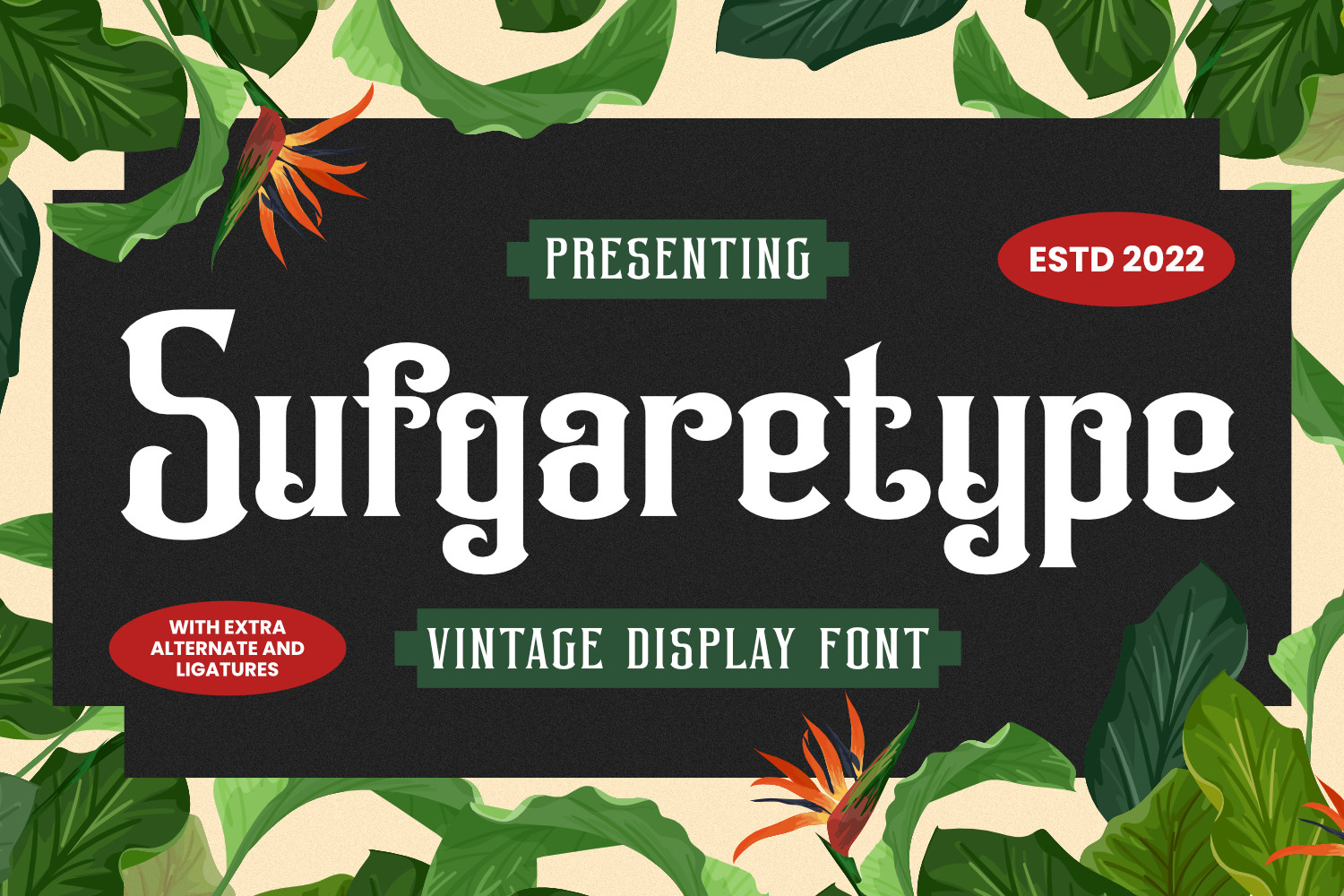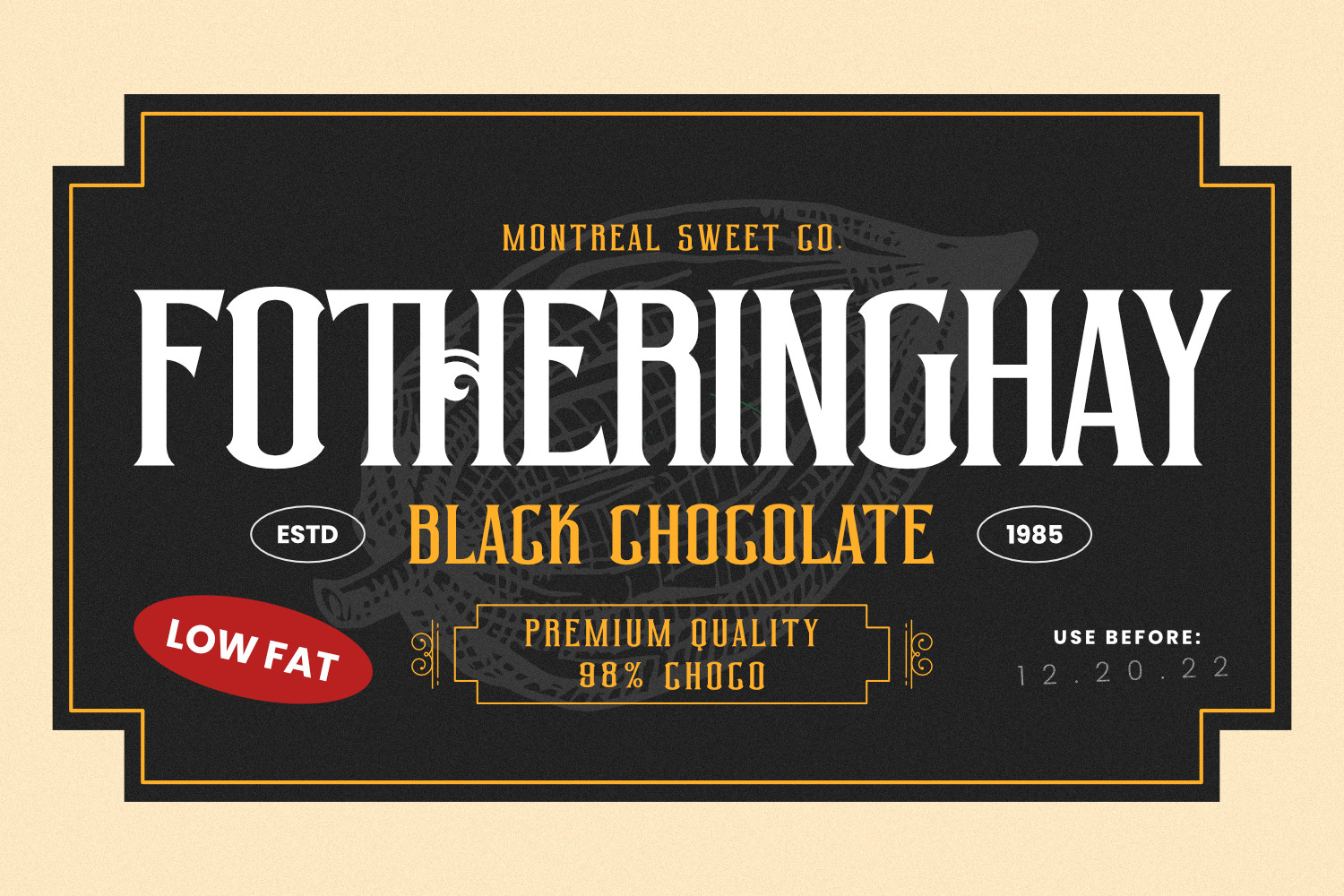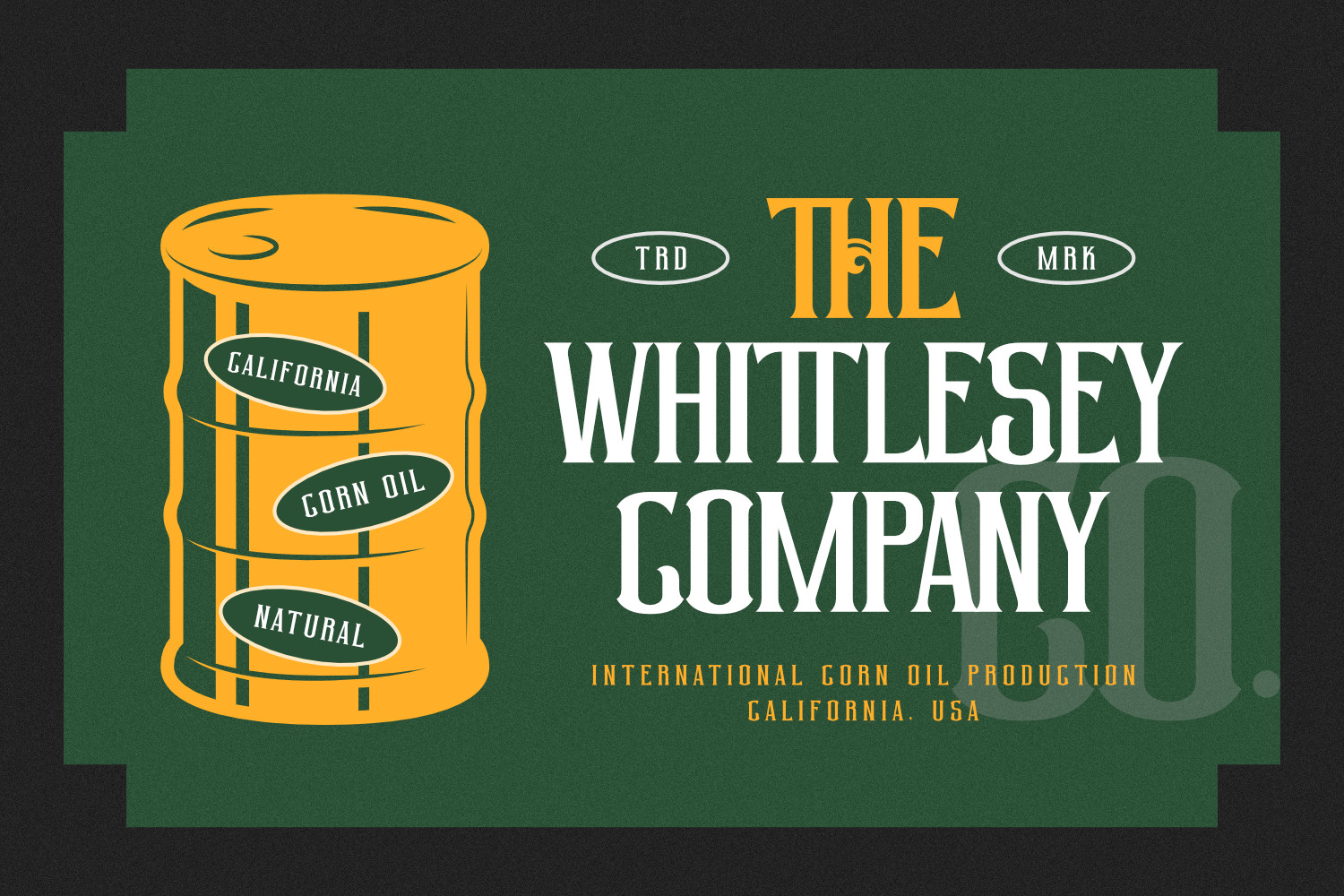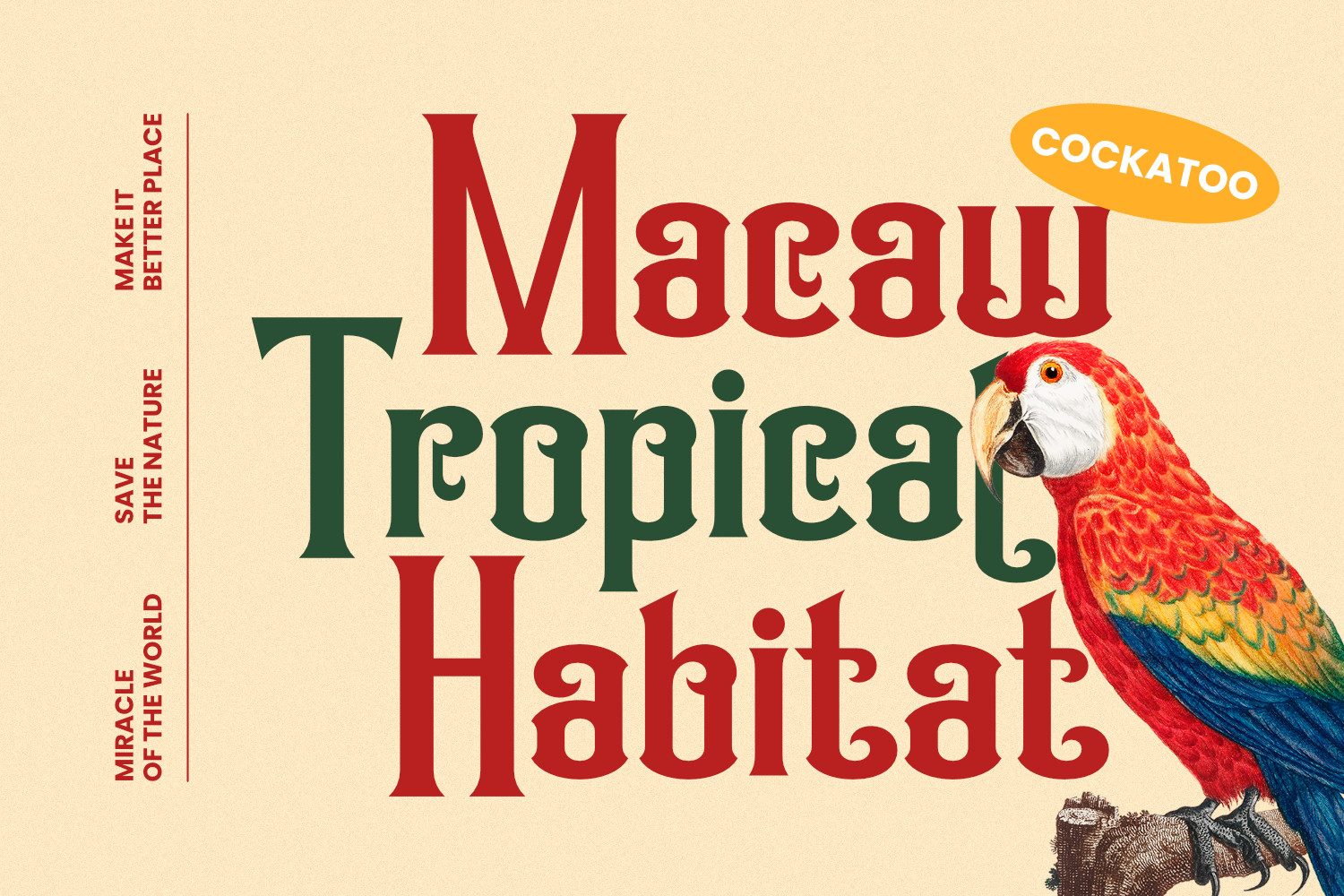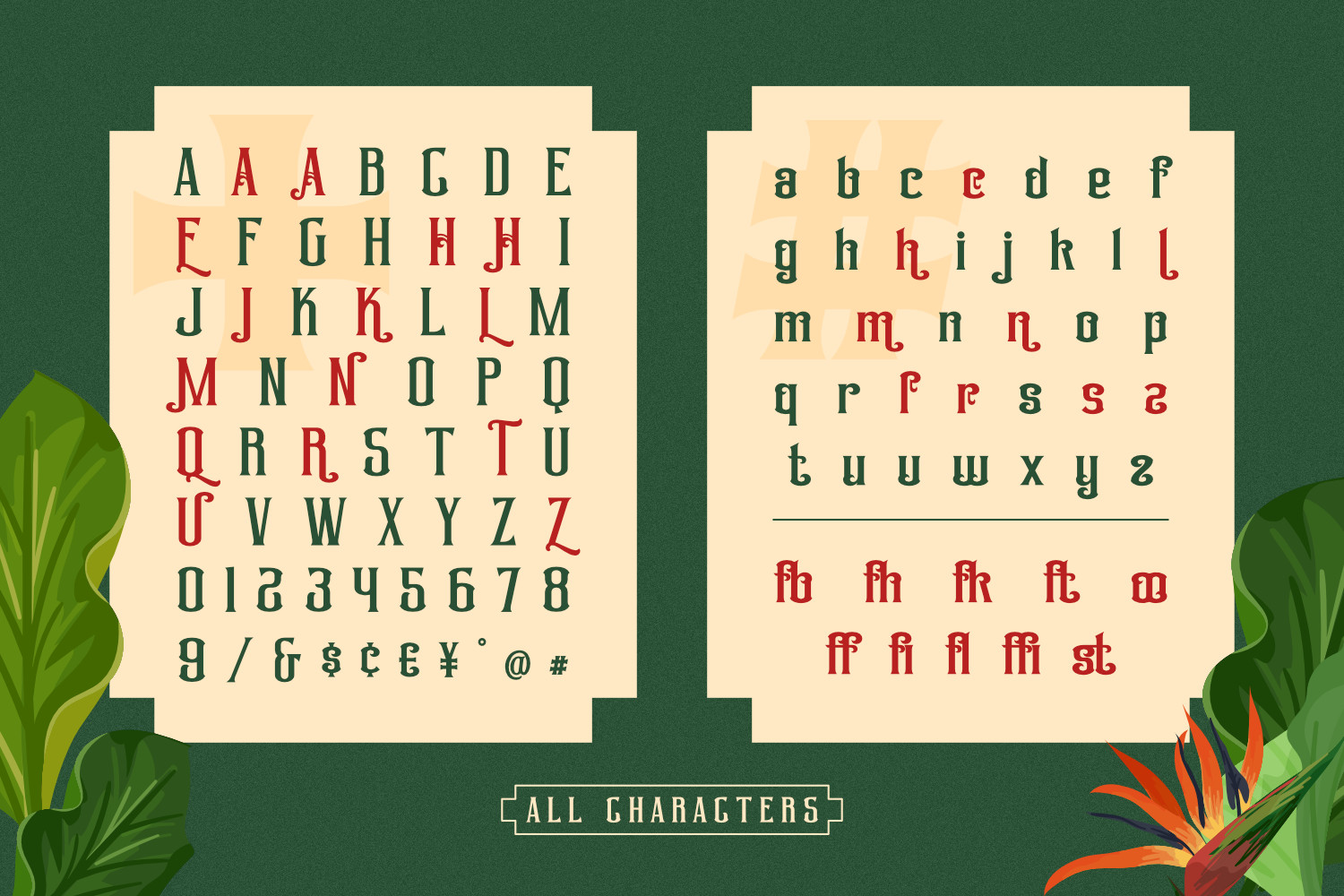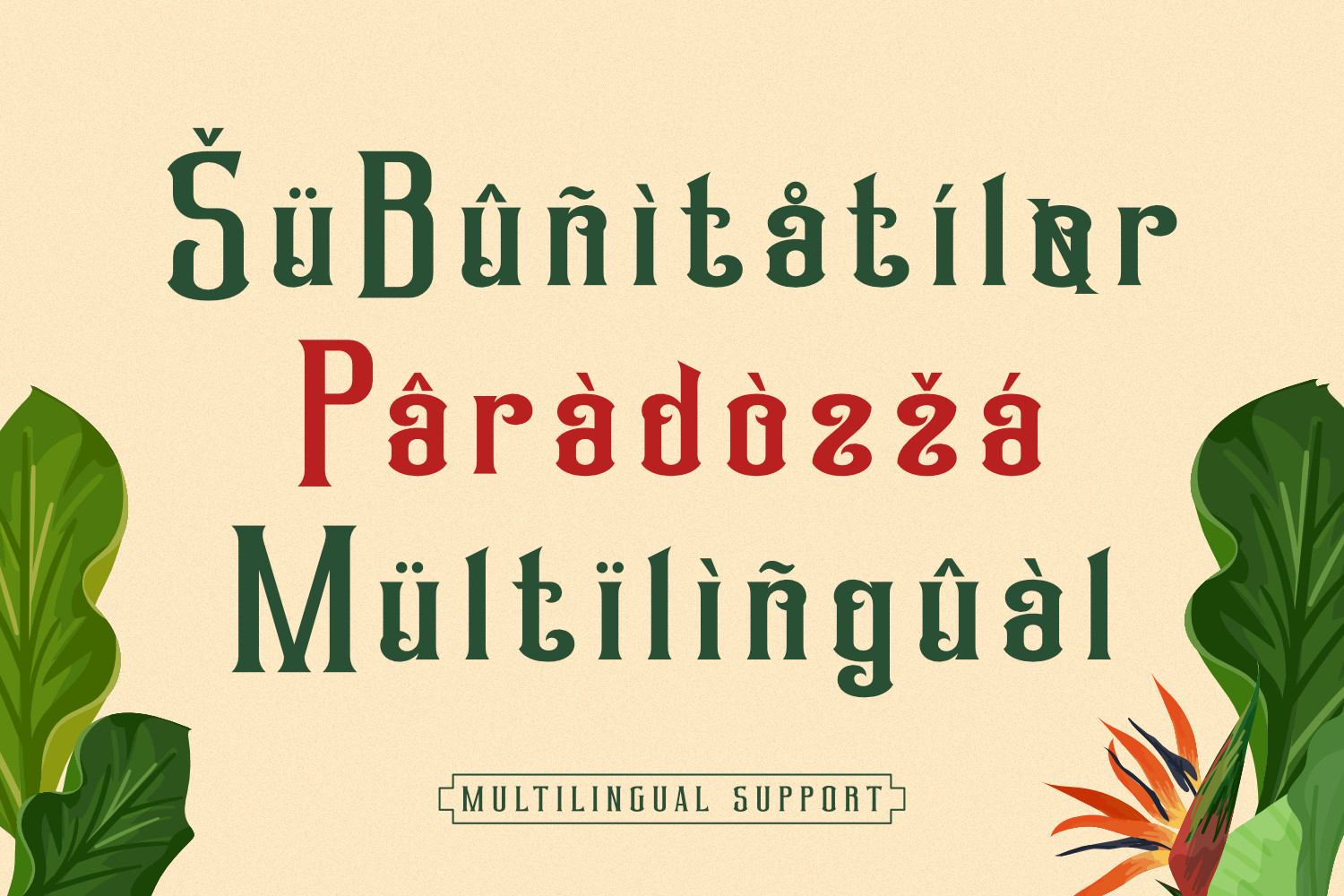
Sufgaretype is a bold vintage display font that mixes old-world charm with tropical flair. Designed with sharp serifs and playful curves, this typeface captures the spirit of traditional signage while maintaining a fresh, contemporary appeal. With its solid structure and nostalgic detail, it stands out beautifully on product packaging, especially for chocolate, drinks, or tropical-themed branding.
Complete with alternate characters, unique ligatures, and multilingual support, Sufgaretype offers excellent versatility for vintage posters, editorial titles, and logo design. Whether you’re creating an artisanal label or a classic retro display, this font delivers both strength and personality with every letter.